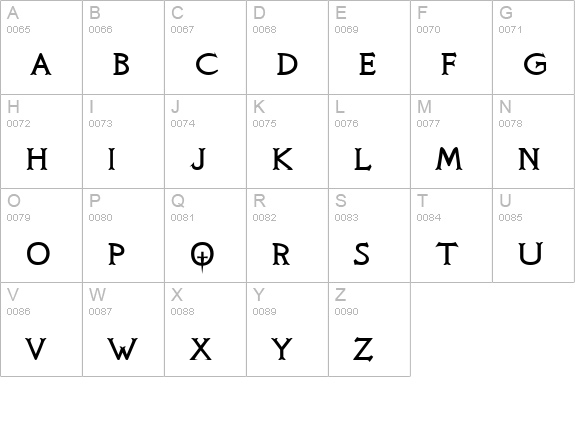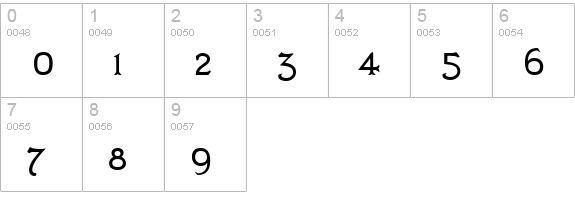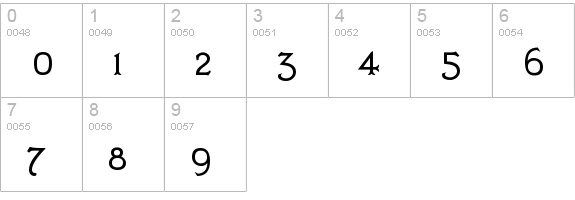
Introducing Knights Quest, a captivating and versatile font that embodies the spirit of medieval knights and chivalry. This beautifully designed typeface takes inspiration from ancient calligraphy and brings forth an air of nobility and grandeur to any design project. Knights Quest features intricate and ornate letterforms, meticulously crafted to capture the essence of ancient manuscripts. Each letter is delicately adorned with elegant serifs and subtle flourishes, creating a sense of timeless elegance and sophistication. The balanced proportions and carefully crafted curves make for a smooth and harmonious reading experience. Whether you're working on a logo design, a wedding invitation, a book cover, or any other creative endeavor, Knights Quest is the perfect companion to add a touch of enchantment and old-world charm. Its versatility allows it to effortlessly adapt to various design styles, from classic and elegant to bold and adventurous. But the best part? Knights Quest is available for free download exclusively at FontsMarket.com. Yes, you heard it right! This captivating font can be yours without spending a dime. Simply visit FontsMarket.com and unlock the magic of Knights Quest for your next creative project. So, why wait? Embrace the allure of the medieval era and let Knights Quest transport your designs to a world of knights, castles, and epic adventures. Download it now and experience the sheer beauty and elegance of this enchanting font.